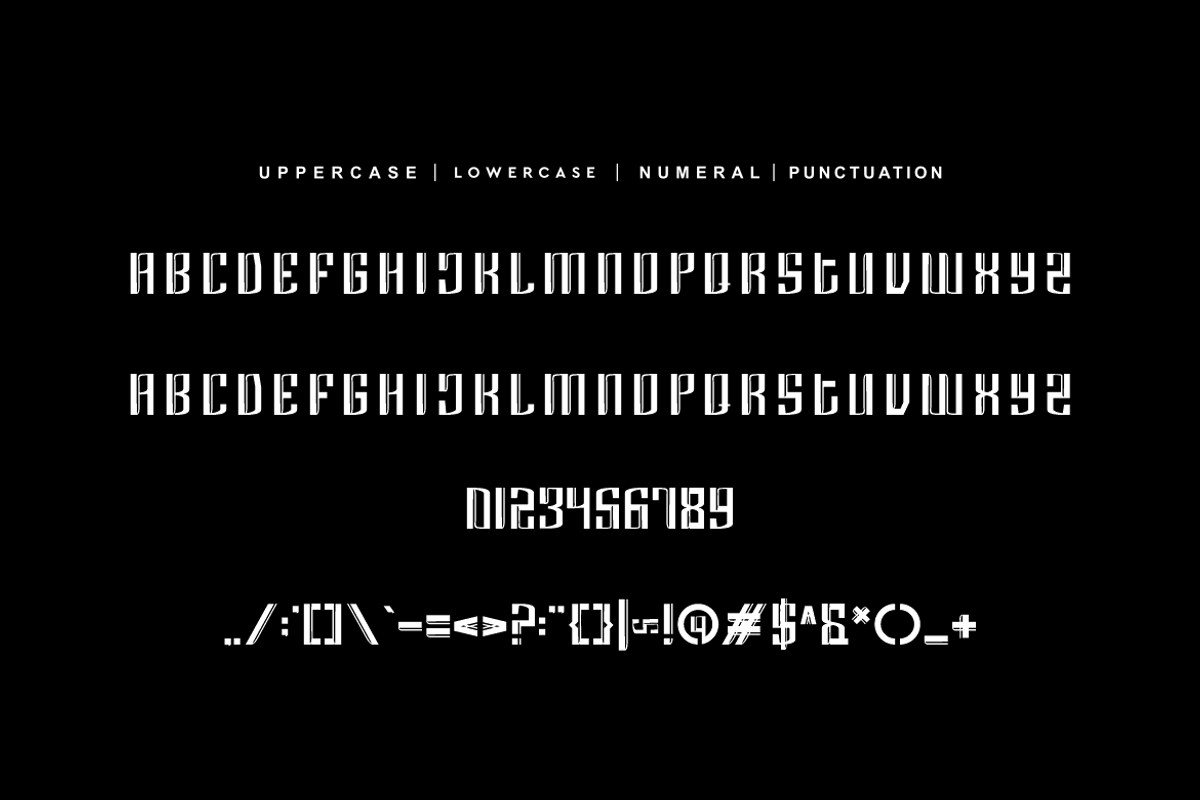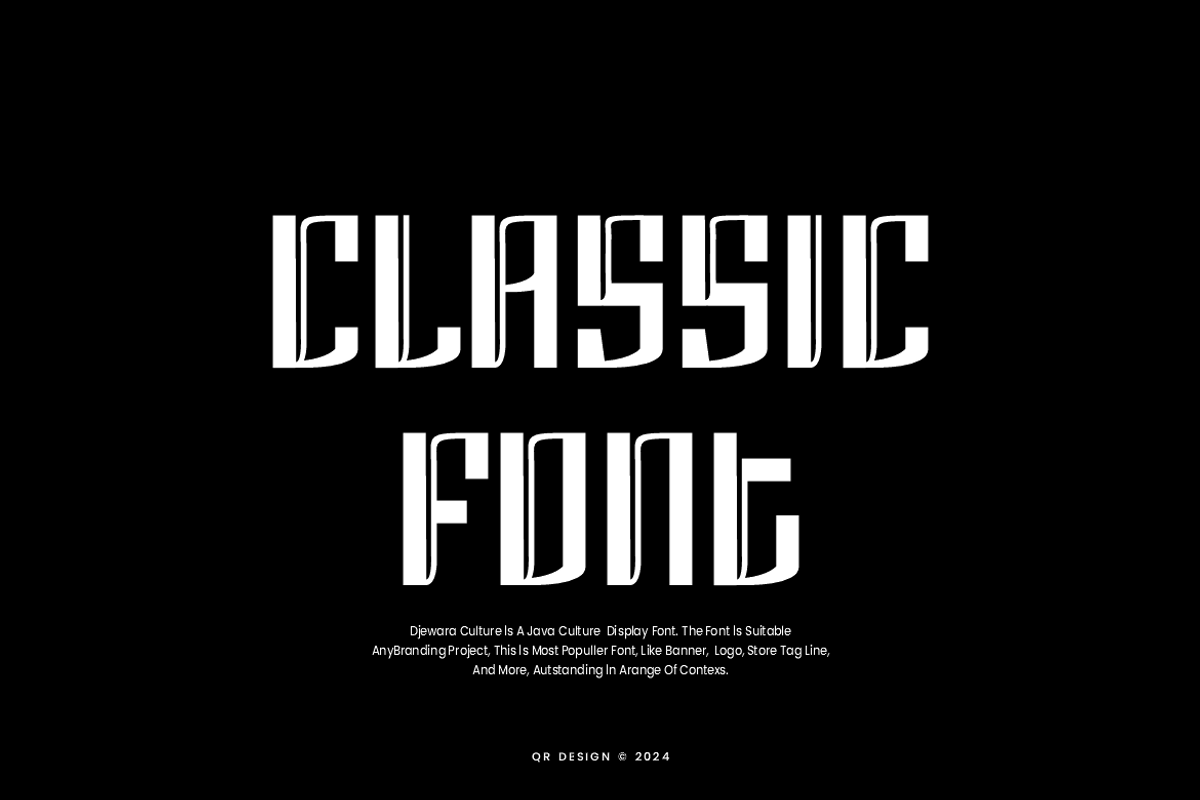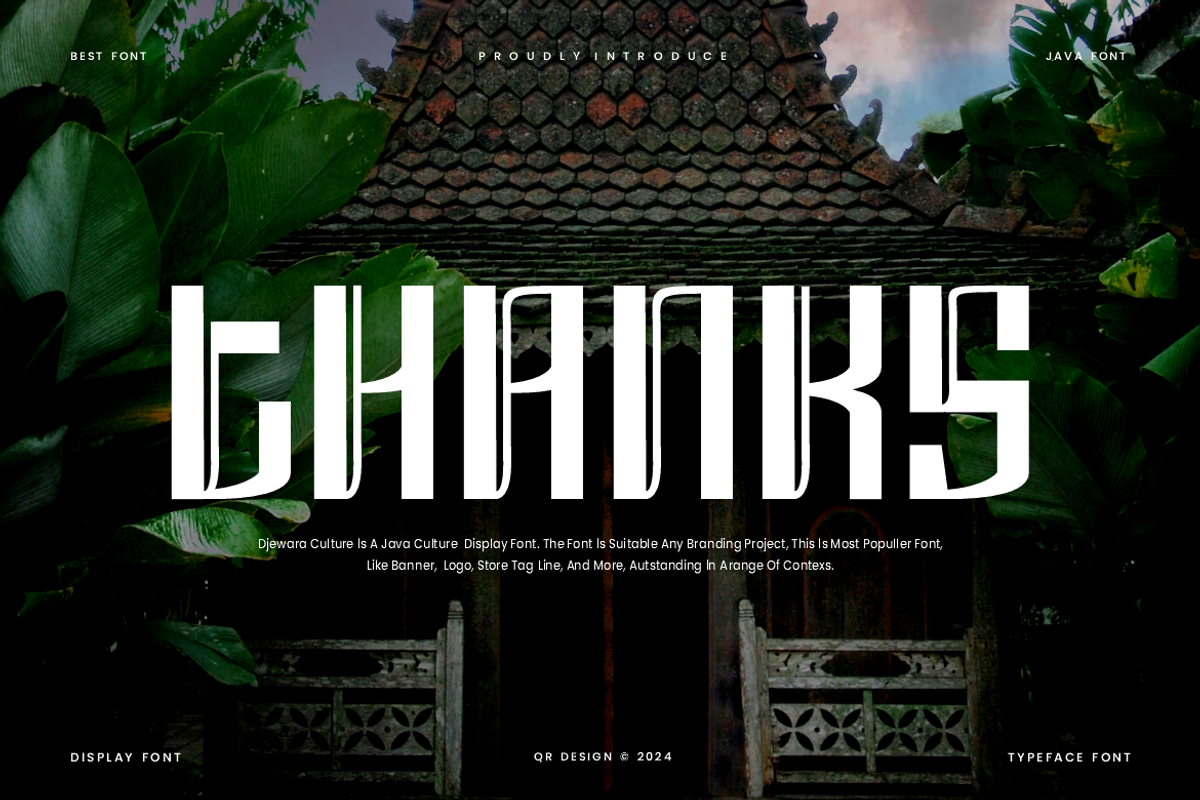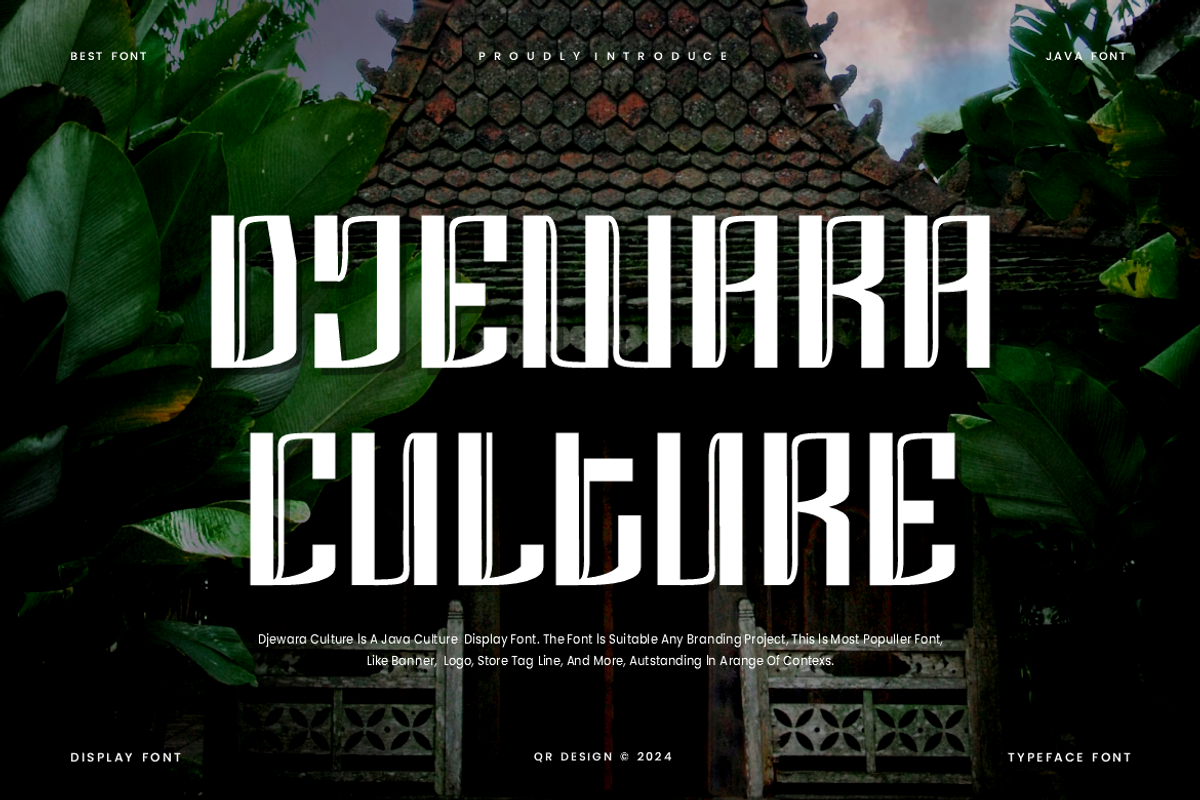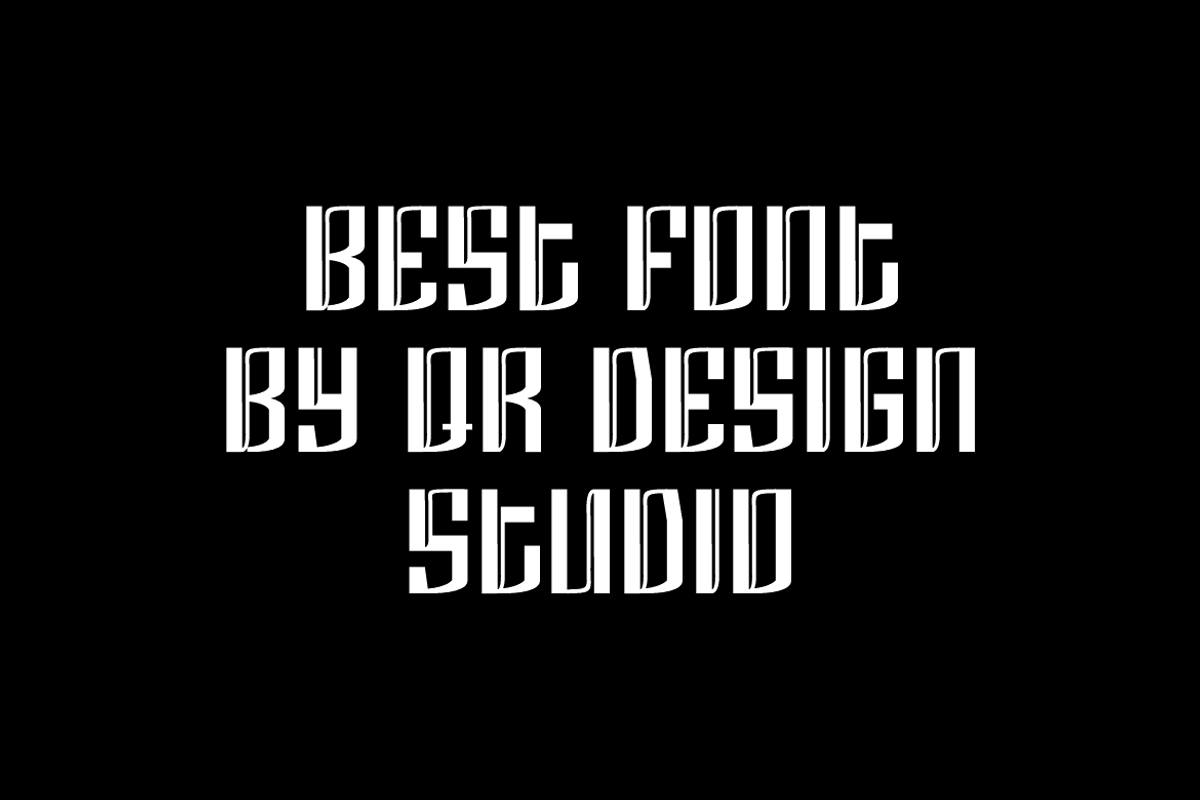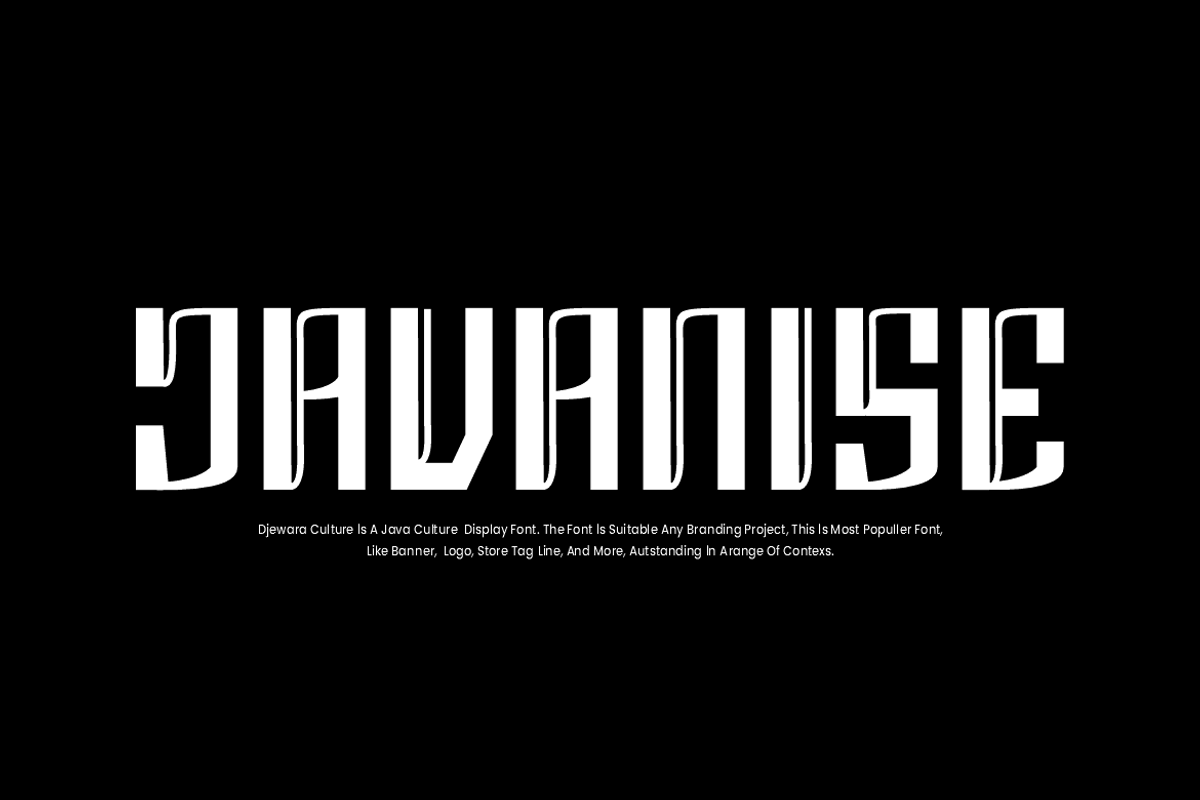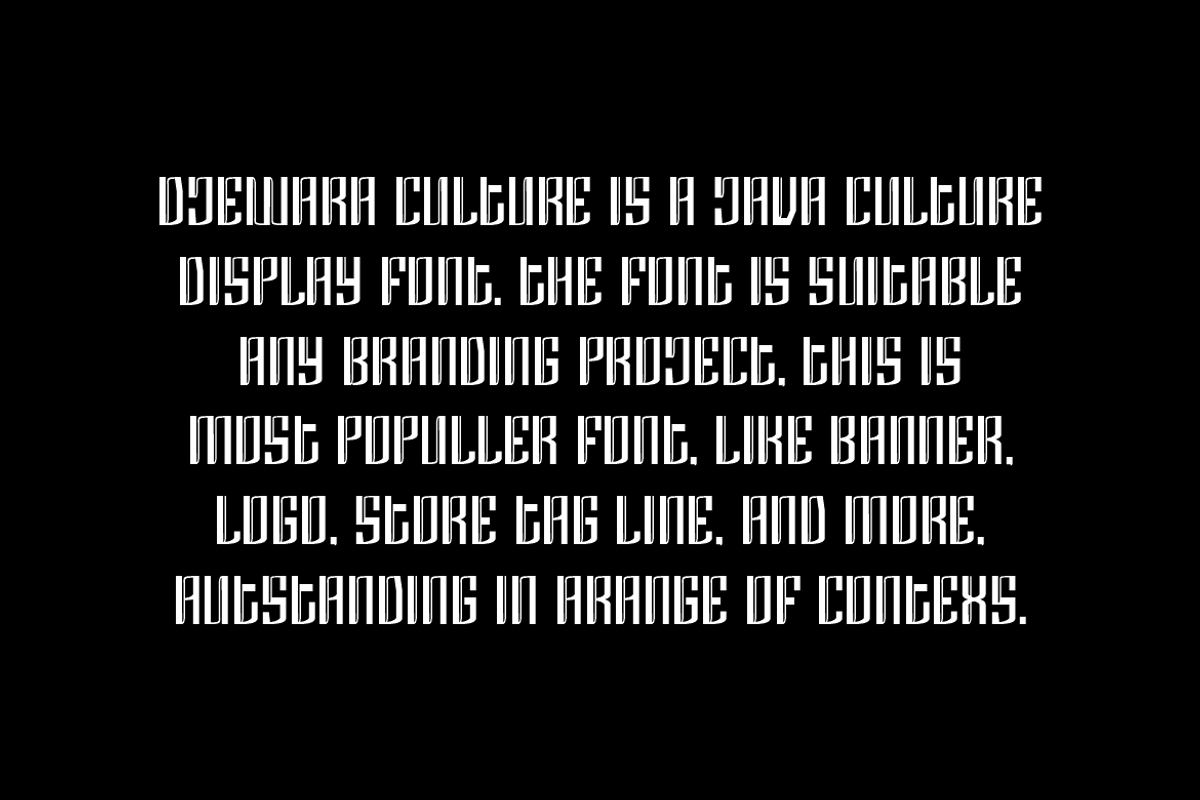
Djewara Culture Font
Djewara Culture Font is a classic and authentic display font. The font is suitable for any branding project like poster, logo, sport, and many more. Outstanding in a wide range of contexts.